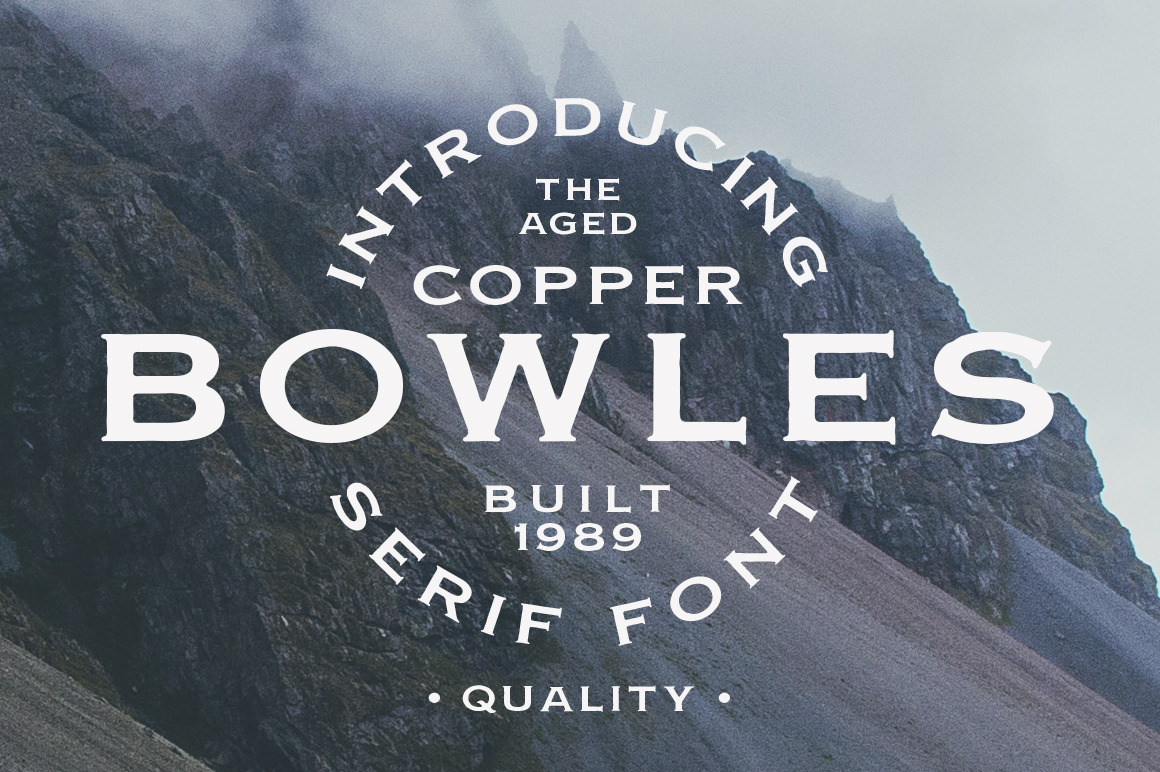
Copper Bowles - Rough Serif Font
Copper Bowles is a modern interpretation of the timeless classic Copperplate Gothic. This typeface packs everything you love about Copperplate Gothic plus way more! I created it to give any project a rough, worn vibe and a 'well-aged' feel quickly and easily.
It Features:
- Worn edges to offer an aged feel
- Rounded corners and serifs to soften its overall vibe
- A wider horizontal axis of all characters, numerals and punctuation glyphs.